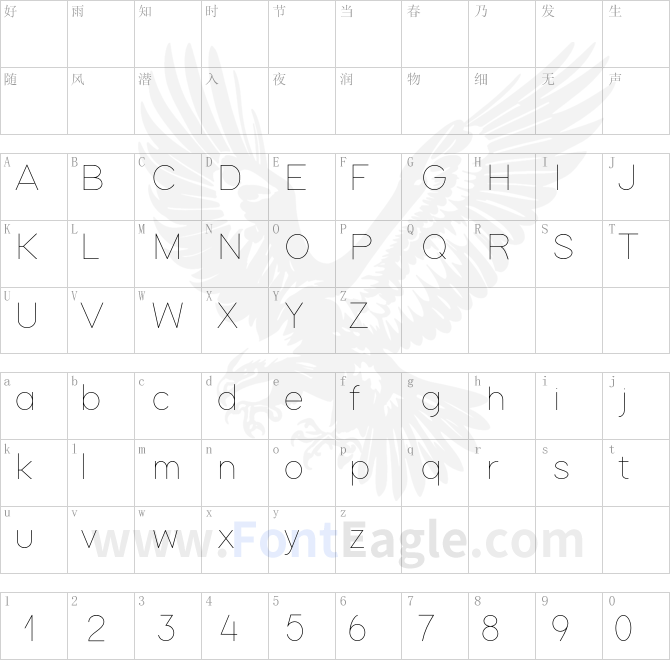
- Font name:SoftLine
SoftLine is a great font, widely used in graphic design, single-page menu design, poster design and other fields, and is deeply loved by designers.SoftLine download.